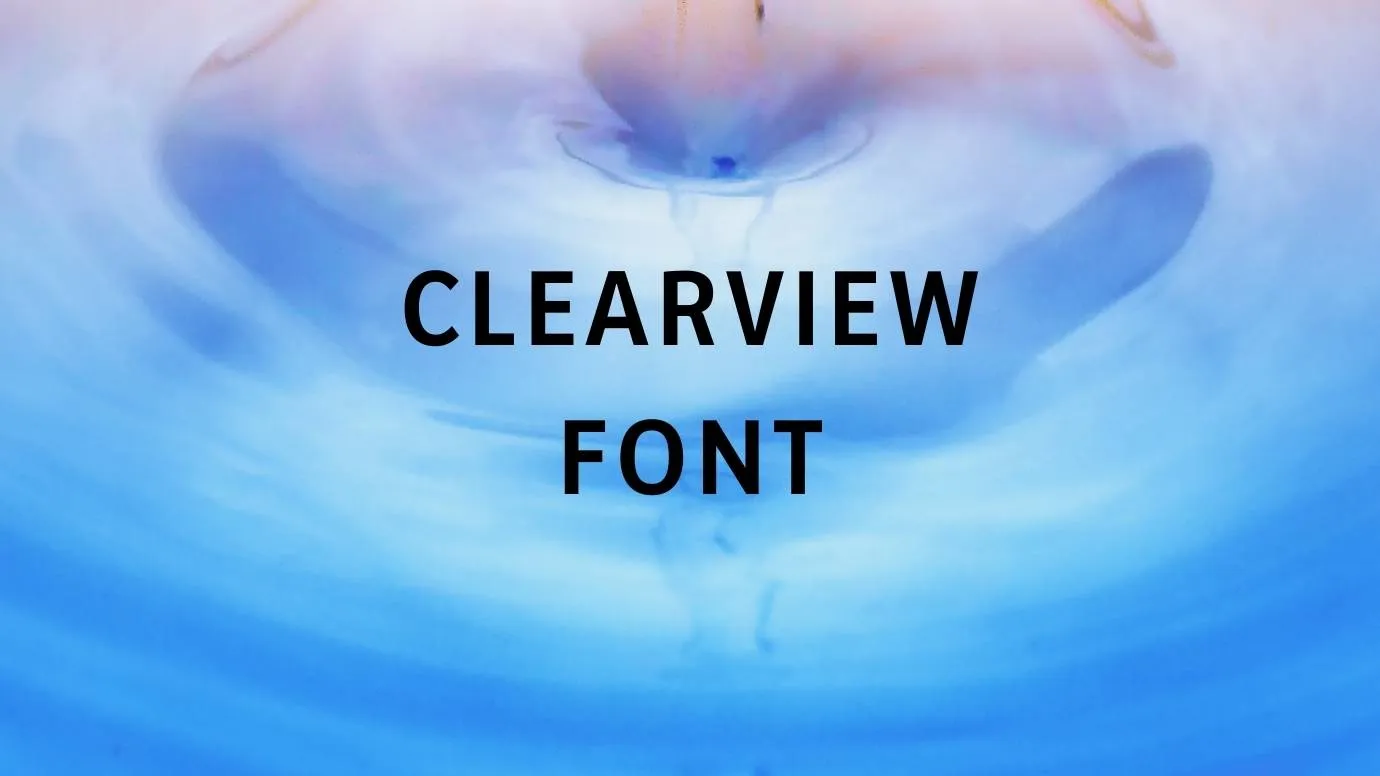
Clearview Font Family is a high legible humanist sans serif typeface that was used for guide signboards on the roads of the USA, Canada, Indonesia, and also Israel, Sri Lanka, and the Philippines. It is also known for Clearview Hwy font, designed by Donald Meeker James Montalbano.
This font family contains a huge set of 13 styles, and each style has all case letters, numbers, general punctuations, symbols, updated icons, and many special characters, suitable for logos, posters, quotes, products, brands, and so on.
Clearview Font Family